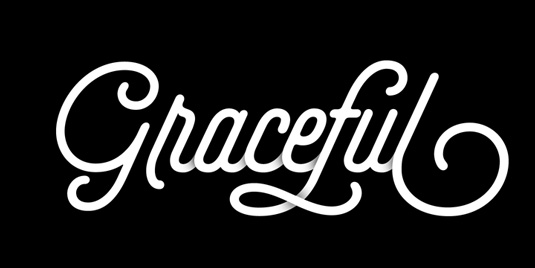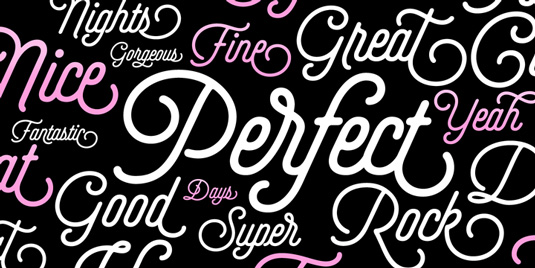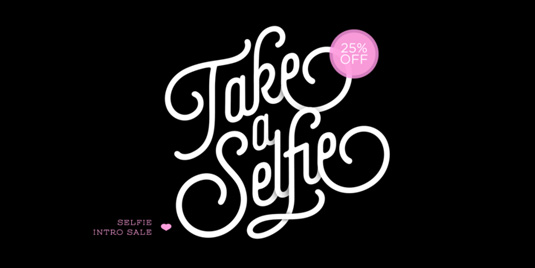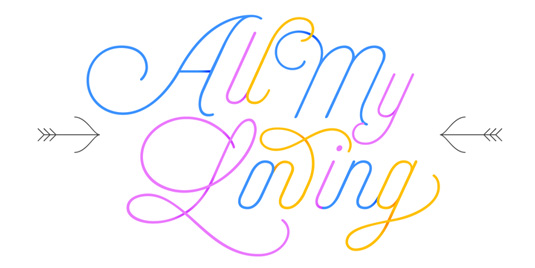
Font of the day: Selfie
Selfie by Maximiliano Sproviero
A connected, sans serif typeface, Selfie was based on the vintage signage scripts seen in Galerías of Buenos Aires. Its creator Maximiliano Sproviero comments on the design: "My very first aim with Selfie was to make a font that would serve as company to those self-shot pictures that have become so popular nowadays. However, the font turned into something more interesting: I realised it had enough potential to stand-alone.
"Selfie proves that geometry itself can be really attractive. In this font, elegance is not achieved with the already-known contrast between thicks and thins of calligraphy, but with the purity of form." Selfie is available to purchase from MyFonts, where you can currently take advantage of a 25 per cent discount on all weights.